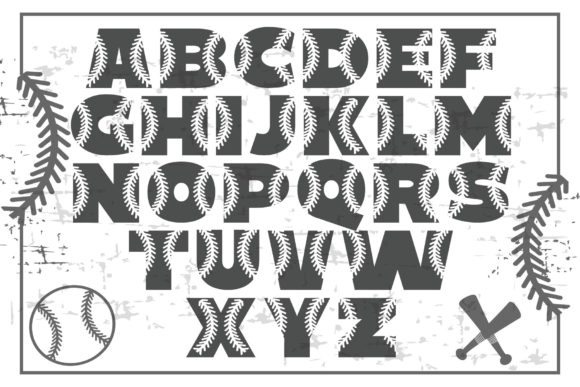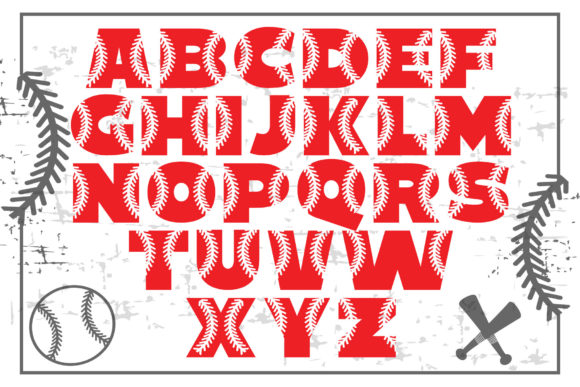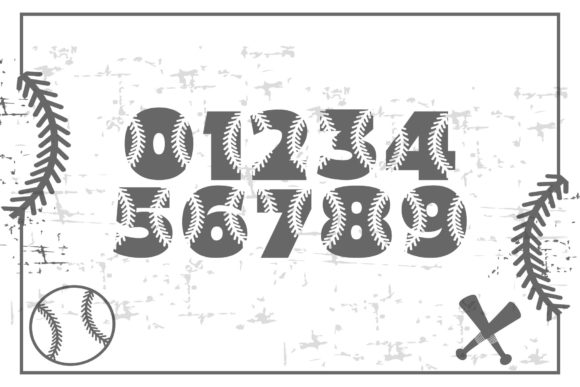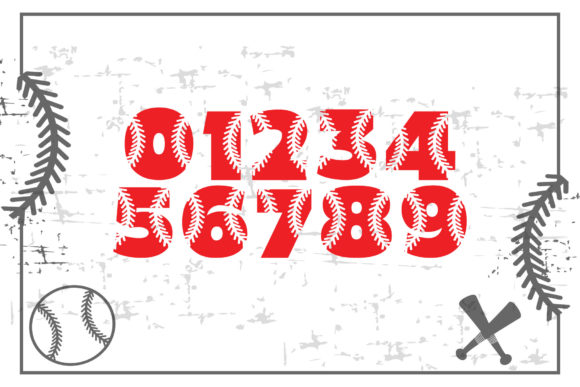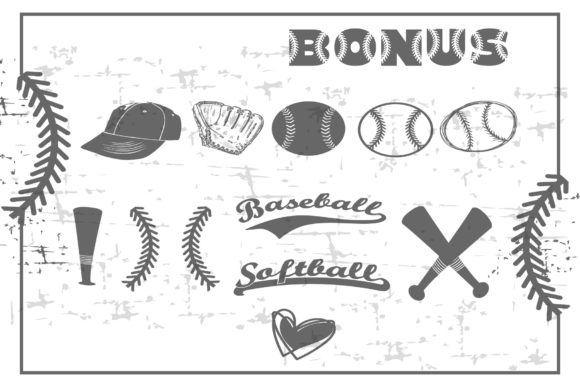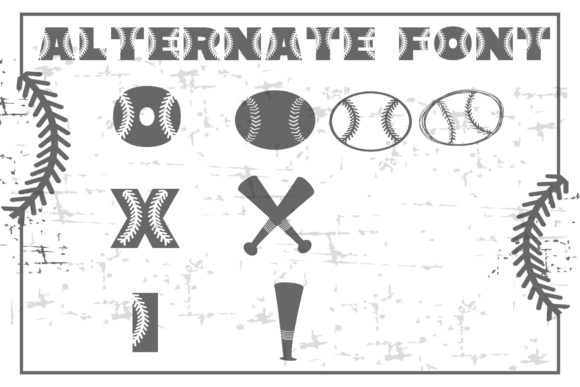
The Perfect Pitch: Discovering the Playful Charm of Baseball Kidz Font
- ✨ Playful and authentic: Baseball Kidz embodies the spirit of youth sports, making it perfect for projects that require a fun and energetic vibe.
- ✅ Easy to read: Despite its chunky, playful design, Baseball Kidz is surprisingly easy to read, even at smaller sizes.
- 💡 Versatile: This font is suitable for a wide range of projects, from sports-themed designs to kid-friendly crafts and more.
- 🤔 Limited use in formal contexts: Due to its playful nature, Baseball Kidz might not be the best choice for formal or professional projects.
- ⚠️ Glyph limitations: As a display font, Baseball Kidz might not have an extensive range of glyphs or special characters.
The Story Behind Baseball Kidz
Baseball Kidz was designed with the intention of capturing the excitement and playfulness of youth sports. The designer aimed to create a font that would inspire creativity and bring a sense of fun to various projects. With its chunky letters and authentic feel, Baseball Kidz has become a go-to font for designers and crafters looking to add a touch of playfulness to their work.
Q: What type of projects is Baseball Kidz best suited for?
A: Baseball Kidz is perfect for sports-related projects, kid-friendly designs, crafts, and any creative endeavor that requires a playful and authentic touch.
Q: Is Baseball Kidz suitable for body text?
A: While Baseball Kidz is easy to read, it’s primarily designed as a display font. It might not be the best choice for extensive body text, but it can work well for headings and titles.